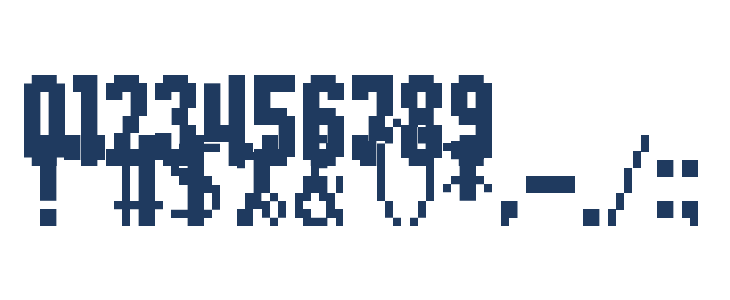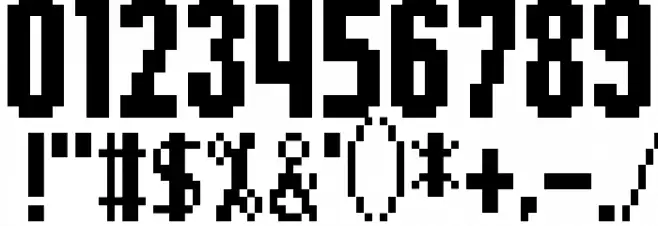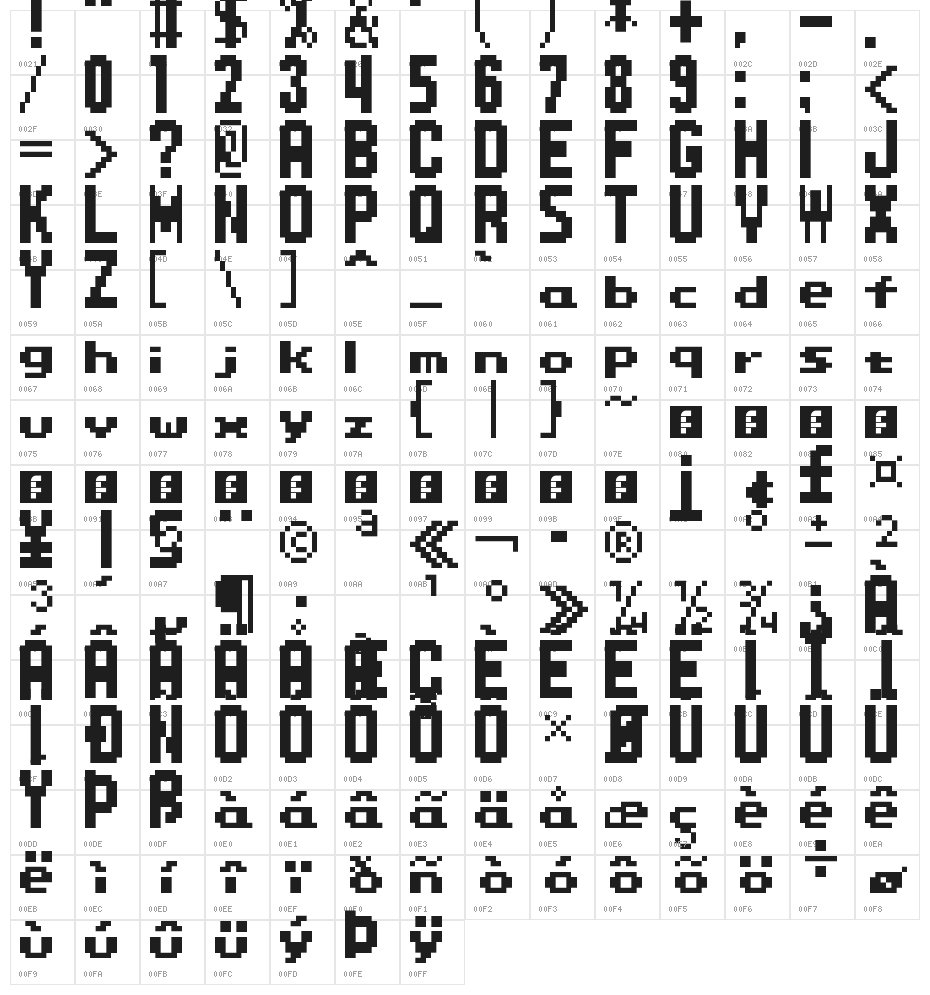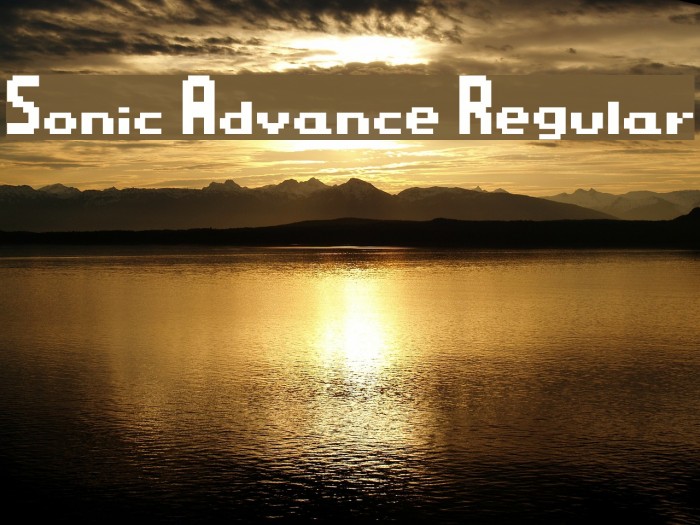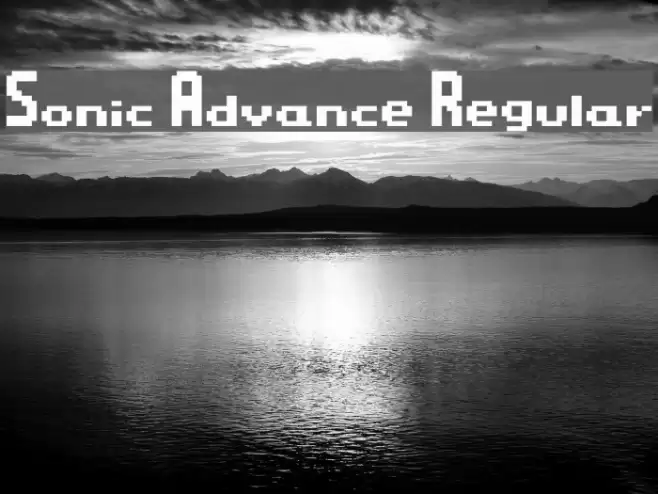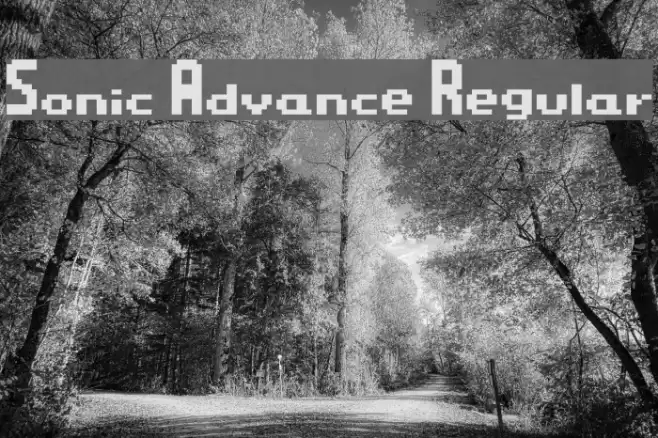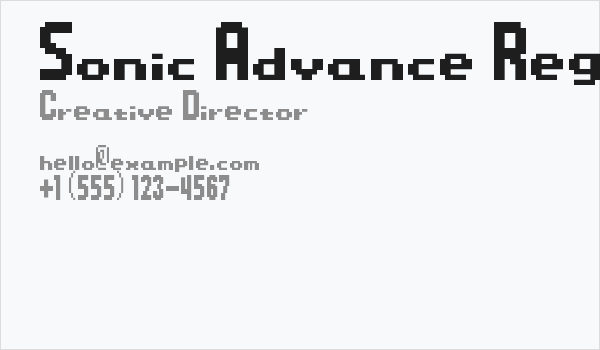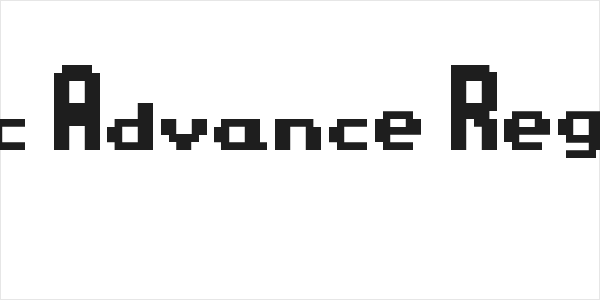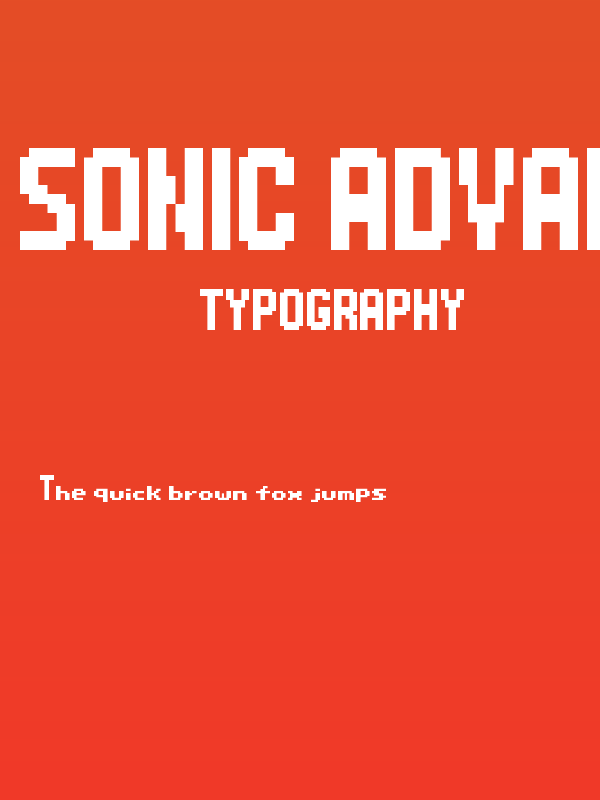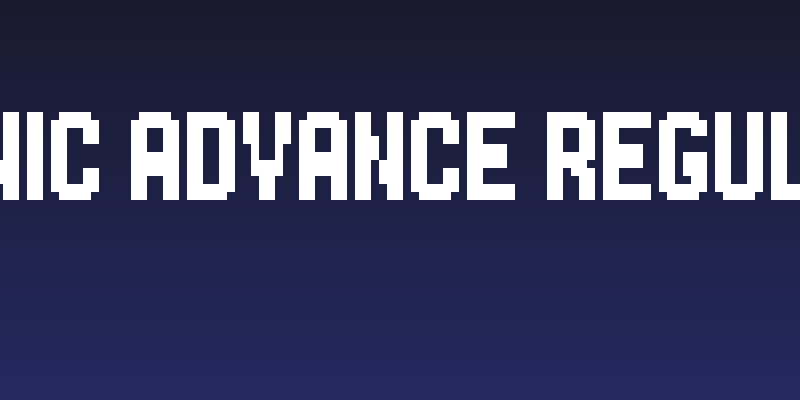
Sonic Advance Regular Font
Sonic Advance Regular Description
This font features a bold, pixelated design reminiscent of classic video game graphics. Each character is constructed with a blocky, grid-like structure, giving it a retro, digital appearance. The uppercase and lowercase letters maintain a consistent height, with minimal variation in stroke width, contributing to a uniform and cohesive look. Numbers and special characters follow the same pixelated style, ensuring visual harmony across all elements. The font's distinct, nostalgic aesthetic makes it ideal for projects that aim to evoke a sense of vintage digital culture.
| Proposed Projects | Ideal for video game designs, retro-themed posters, digital art projects, and any creative work that seeks to capture a nostalgic, 8-bit style. |